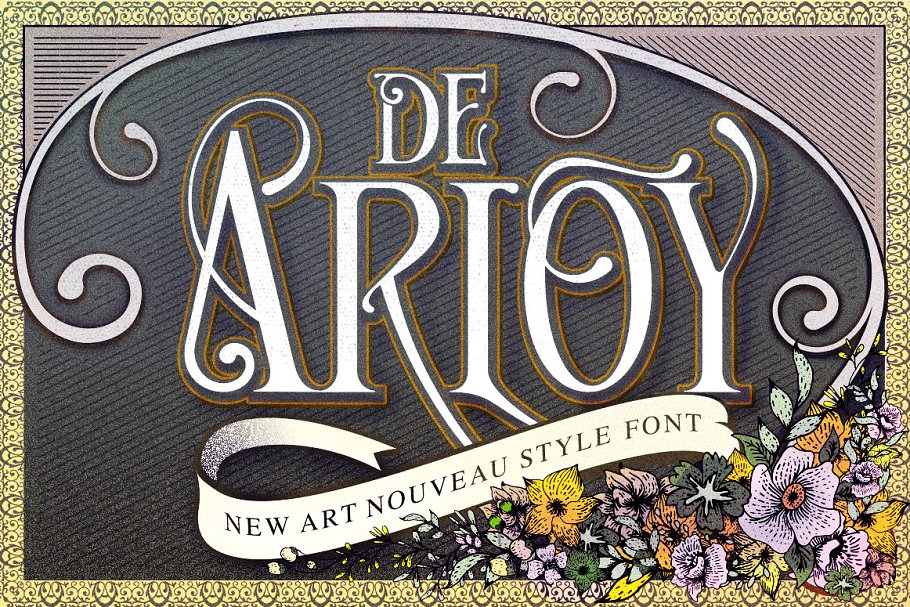
Looking for a font that brings classic touch on this decade? Look no further than De Arloy Typeface! Created by Panji Nugraha, De Arloy Typeface is an art nouveau style font inspired by the classic typography from 1890-1910. With its awesome features, this font family is sure to make your text stand out from the crowd.
De Arloy Typeface is perfect for a range of applications, including wine packaging, labeling, logo design, classic shop, coffee shop, movie titles, and more. This font works particularly well for large displays or short words, making it ideal for eye-catching headlines and signage.
The De Arloy Typeface family includes uppercase and lowercase letters, numerals, and punctuations. But that's not all - this font also features ligatures and stylistic alternates (ss01) to give your text even more flair.